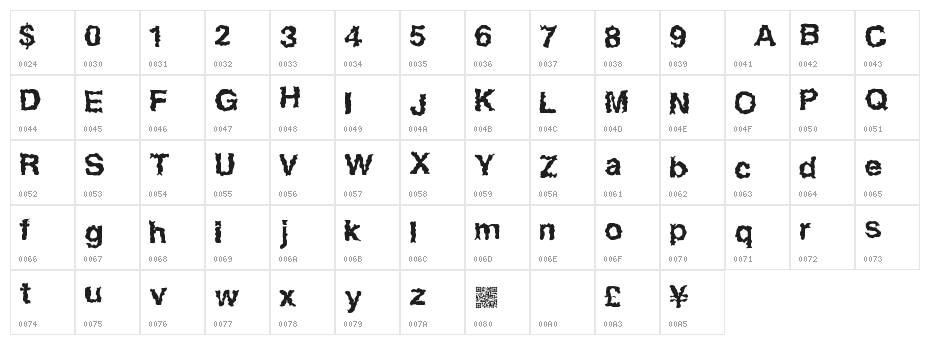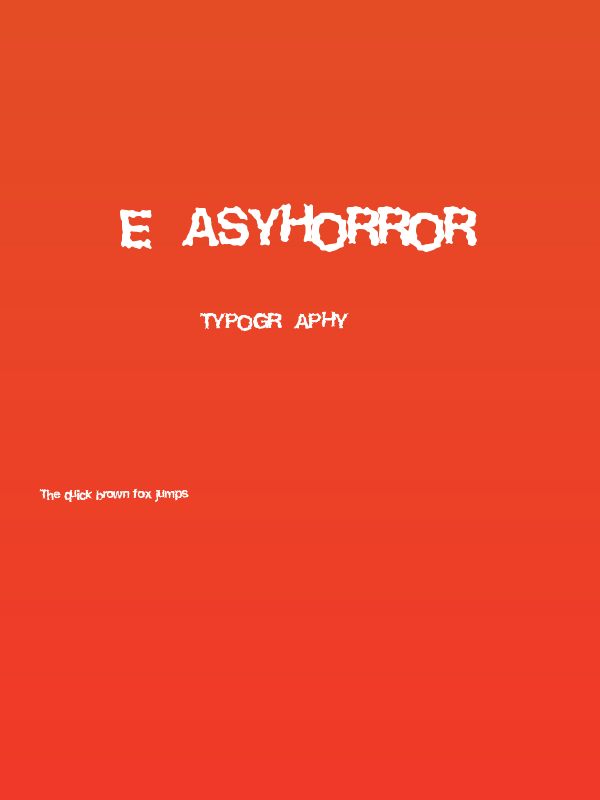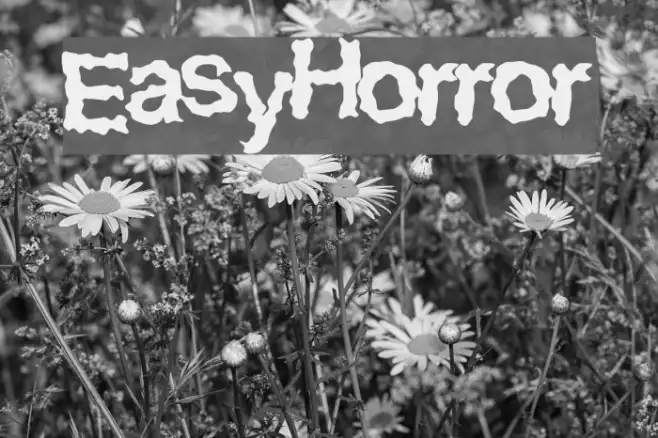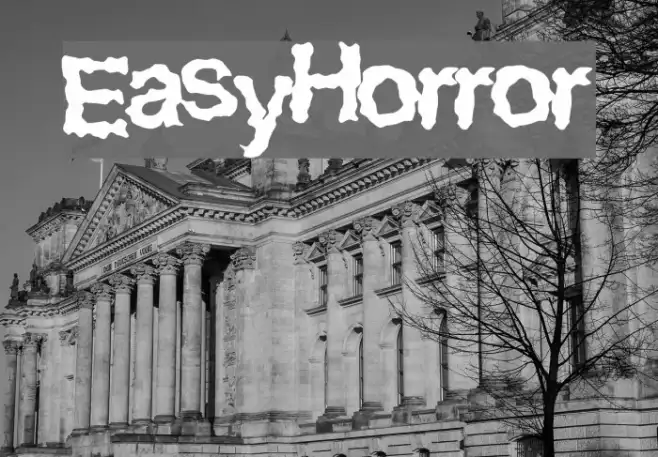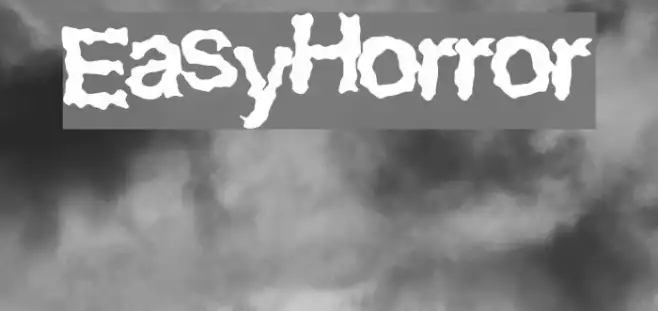
EasyHorror Font
EasyHorror Description
This font features a unique, eerie design with jagged, irregular edges that give it a distinctly horror-themed appearance. The characters are bold and have a rough texture, reminiscent of dripping paint or melting wax, which enhances its unsettling aesthetic. The uppercase and lowercase letters maintain a consistent style, with exaggerated curves and sharp angles that create a sense of movement and chaos. Numbers and special characters follow the same design principles, ensuring a cohesive look across all glyphs. This font is perfect for creating a spooky atmosphere in any design project.
| Proposed Projects | Ideal for Halloween posters, horror movie titles, themed event invitations, and spooky merchandise designs. |